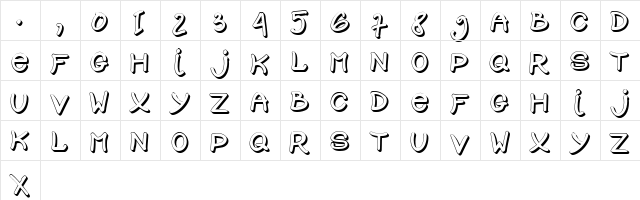
SCHOOL Regular
| Foundry | Mr Letters |
| Designer | Mr Letters |
Design Context for SCHOOL Typeface
SCHOOL is a composed and adaptable typeface that performs quietly and consistently across a wide range of design contexts.